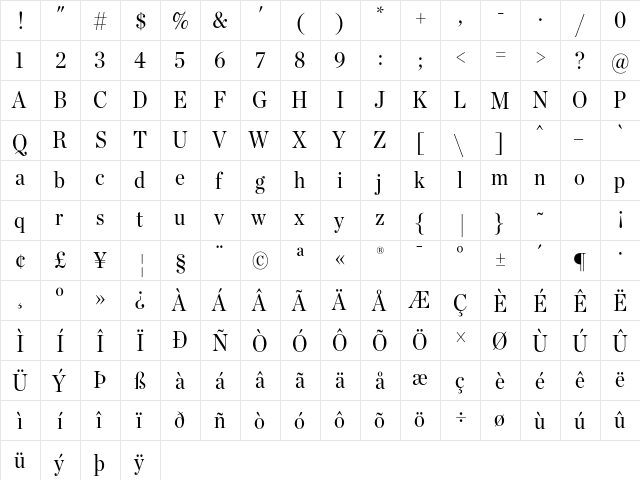
Chronicle Disp Cond Roman
| Foundry | Hoefler & Frere-Jones |
| Designer | Hoefler & Frere-Jones |
Design Context for Chronicle Disp Cond Typeface
Chronicle Disp Cond offers clean, dependable letterforms without strong stylistic allegiance, making it a practical choice for designers who need flexibility. The condensed width makes it efficient for tight spaces without sacrificing legibility.